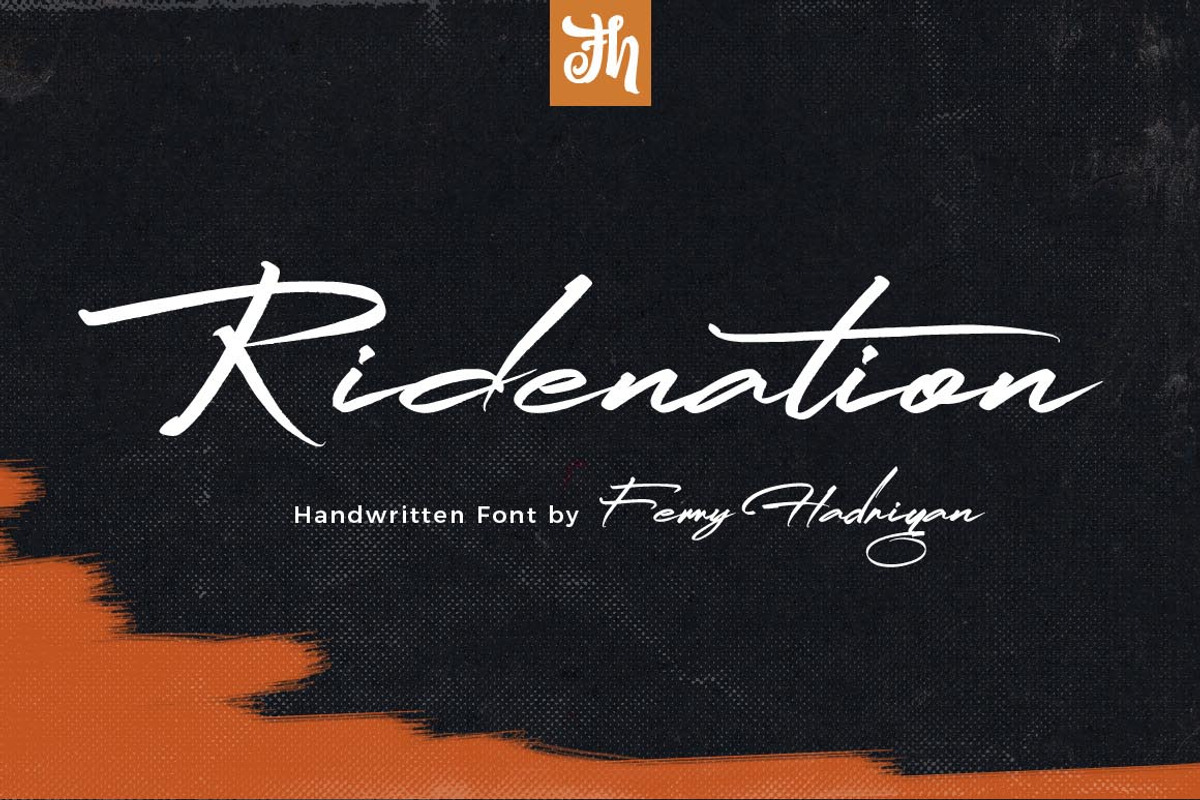
Ridenation - Handwritten Font
Ridenation is script font with handlettering brush style, with opentype feature include of the font. Suitable for design, element design, wedding, event, t-shirt, logo, badges, sticker, and awesome work, etc...
All Standard Character, Symbol, Multilanguage, Ligature, Stylistic Set, and Swashes.
Unique style fonts